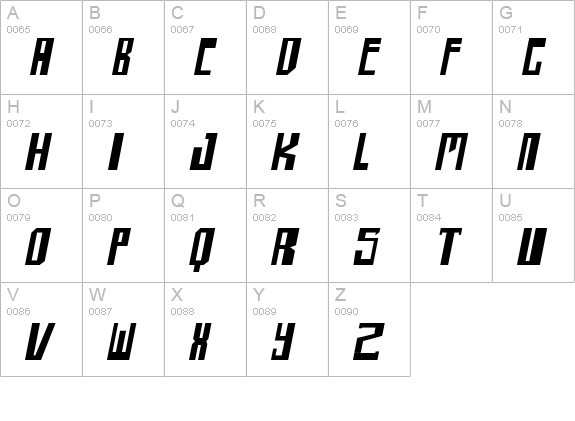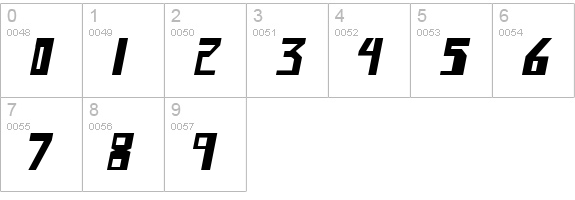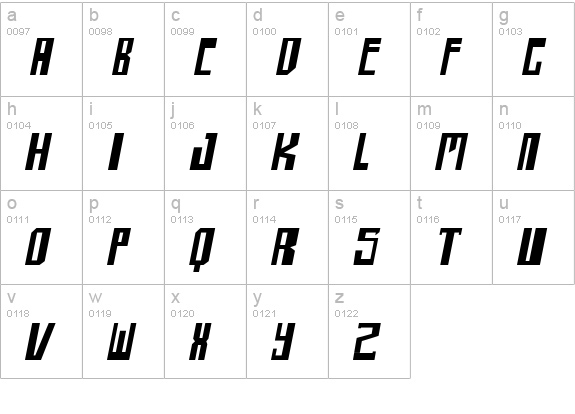
shellhead Italic Font Details
shellhead Italic is a distinctive, italic variant in the shellhead typeface family \xE2\x80\x94 well suited to design and typography projects.
Introducing Shellhead Italic font, a sleek and modern typeface that exudes elegance and sophistication. With its clean lines and stylish curves, this font is perfect for adding a touch of sophistication to any design project. The italic styling of Shellhead adds a sense of movement and flair, making it ideal for use in headings, logos, and other display text. One of the best things about Shellhead Italic font is that it is completely free to download. Yes, you read that right - this stunning font can be yours at no cost! Simply head over to FontsMarket.com and grab your copy today. Don't miss out on the opportunity to enhance your designs with this versatile and eye-catching typeface. Download Shellhead Italic font now and elevate your projects to the next level!